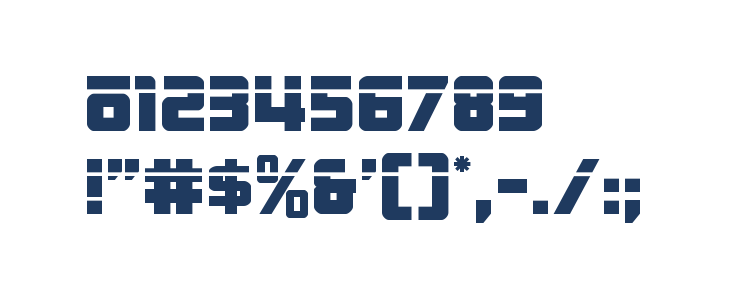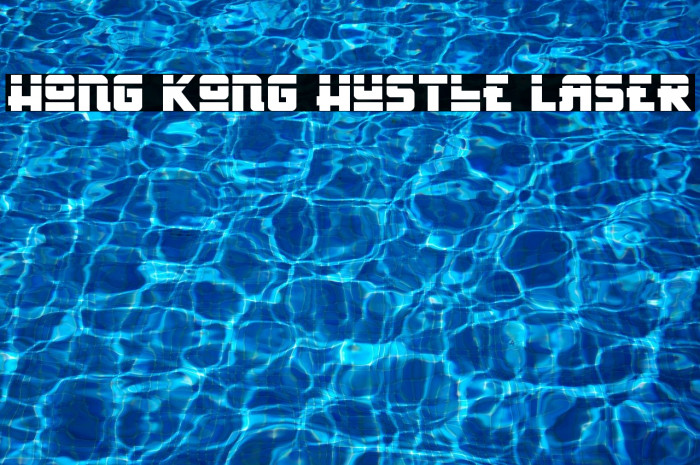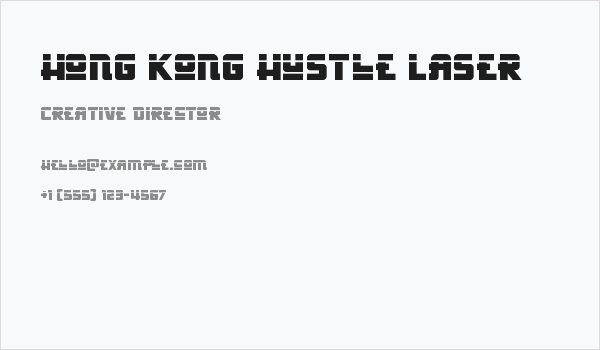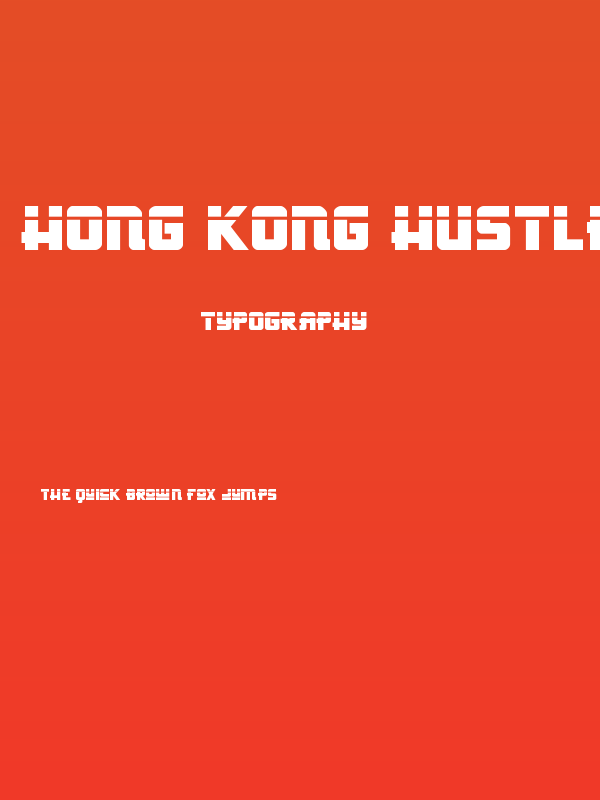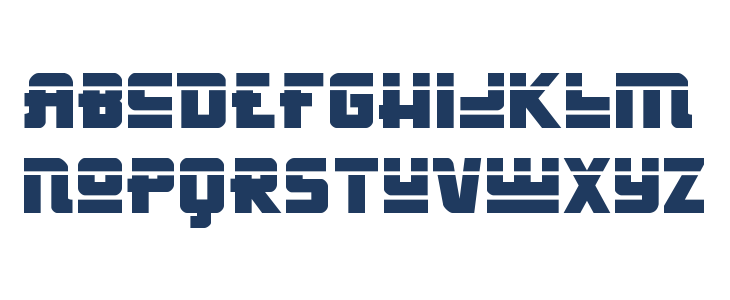
Hong Kong Hustle Laser Font
Hong Kong Hustle Laser Description
This font features a bold, futuristic design with a strong geometric influence. The characters are constructed with thick, block-like shapes, giving them a robust and impactful appearance. The angular cuts and sharp edges contribute to a modern and tech-inspired aesthetic. The uppercase and lowercase letters maintain a consistent style, while the numerals and special characters integrate seamlessly with the overall design. The font's unique structure makes it stand out, ideal for projects that require a bold statement.
| Proposed Projects | Ideal for use in technology branding, video game titles, sci-fi movie posters, and modern advertising campaigns. |